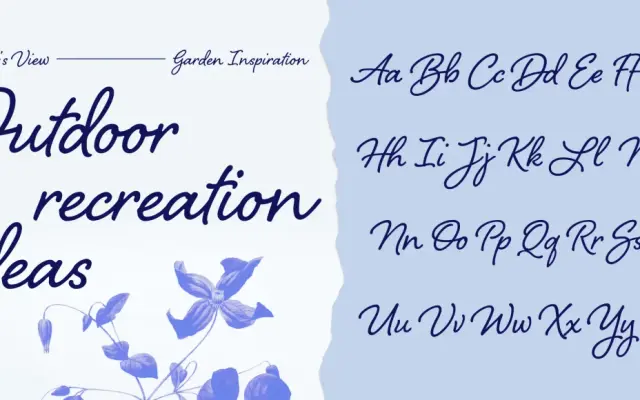
Shelby
A monoline, semi-connected handwritten script in two weights, with ligatures, stylistic alternates and 20 ornaments for headlines, logos and call-outs.
Shelby is a casual script drawn from hand lettering, with a monoline stroke and semi-connected letterforms that keep it legible at display sizes. The family ships in Regular and Bold, with common ligatures, stylistic and contextual alternates, and 20 complementary ornaments accessible without specialist design software. Language support spans over 25 Latin-based languages including French, German, Polish and Turkish.
Shelby is a monoline, semi-connected script based on hand lettering, giving it the casual, informal character of handwriting. Its fluid, connected letterforms place it firmly in the script category, with a relaxed handwritten subcategory.